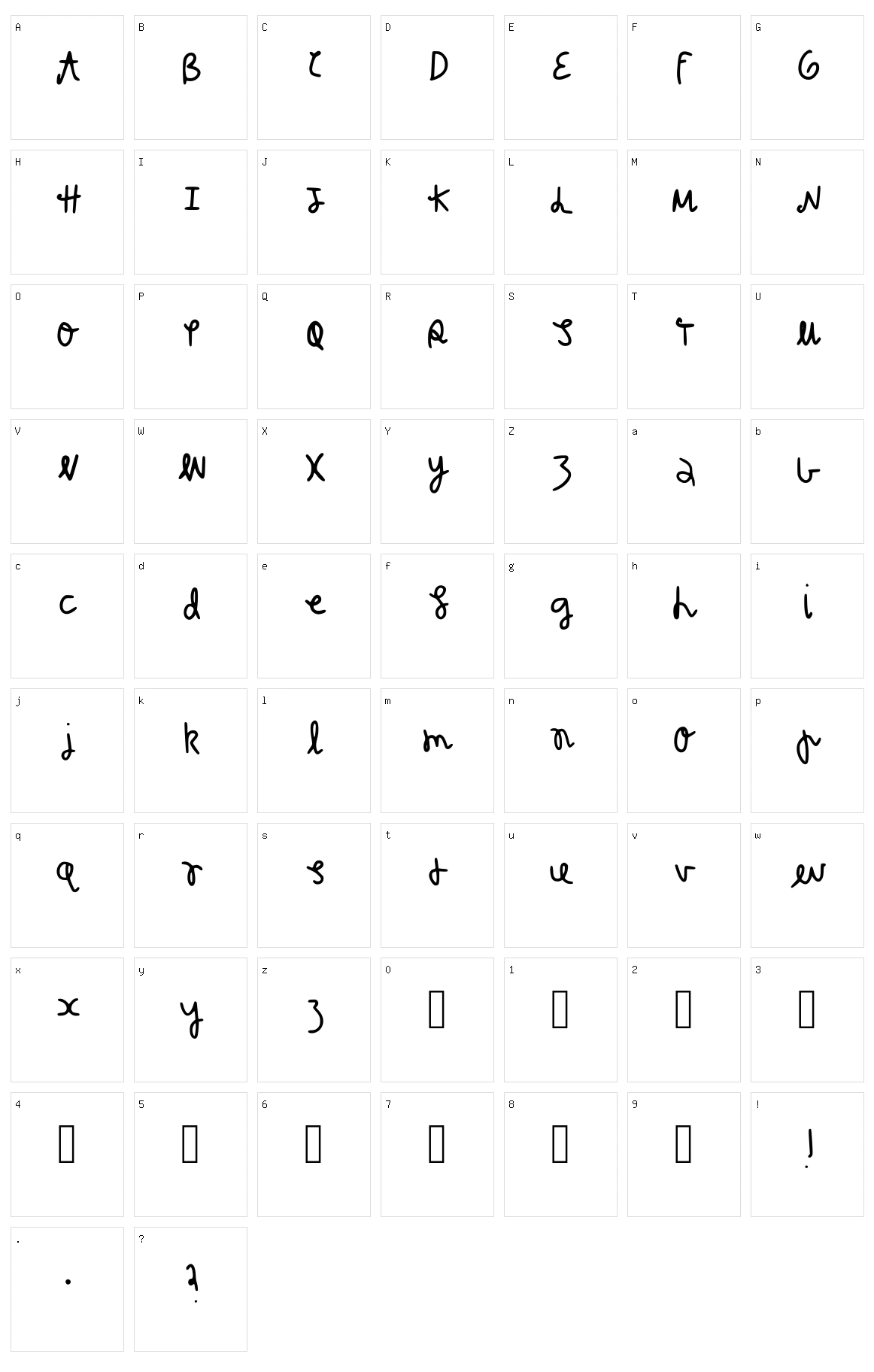
The free font Silly Gal is carefully designed by kaitalanisdesigns, showcasing a thoughtful balance of creativity and usability and falls under the Script font style. When you download the ZIP file, it contains only 7.94 KB of font files, making it lightweight and quick to download. Please review the license details below to understand permitted usage and distribution rights. If license information is not available, we recommend using this font for personal projects only or contacting the author directly for commercial usage permissions.